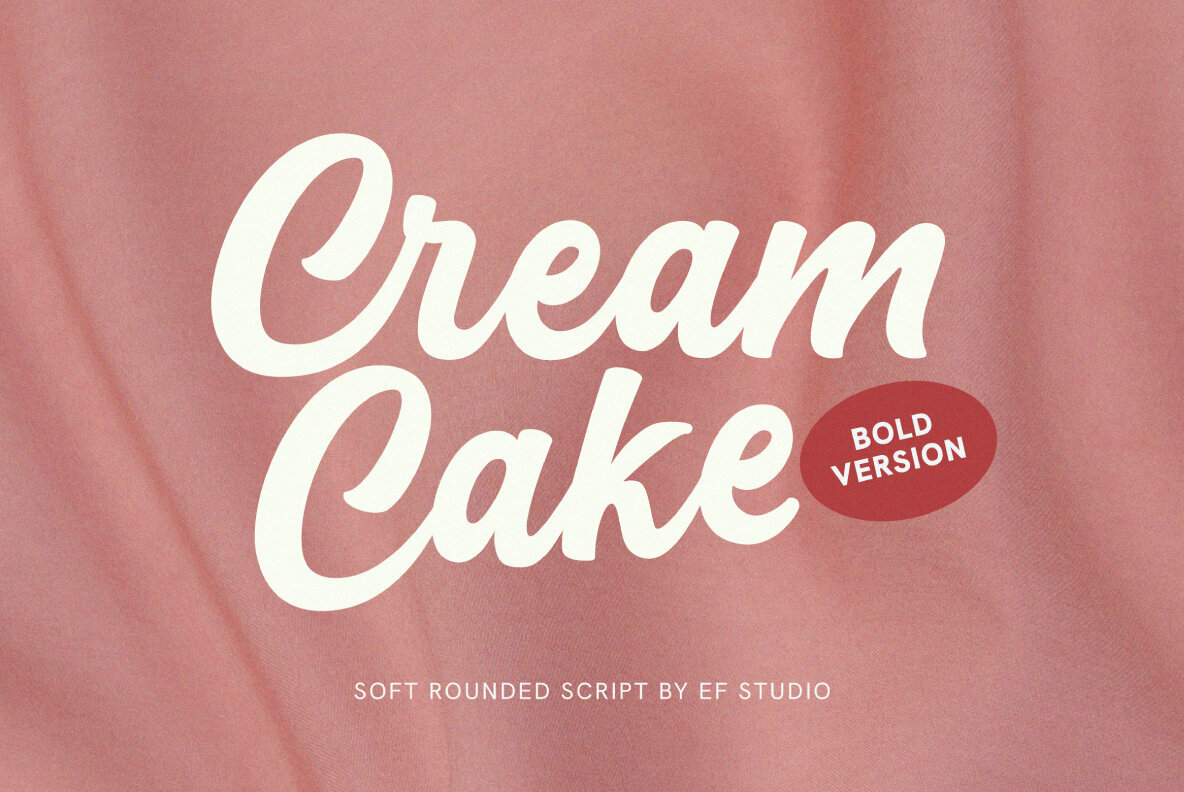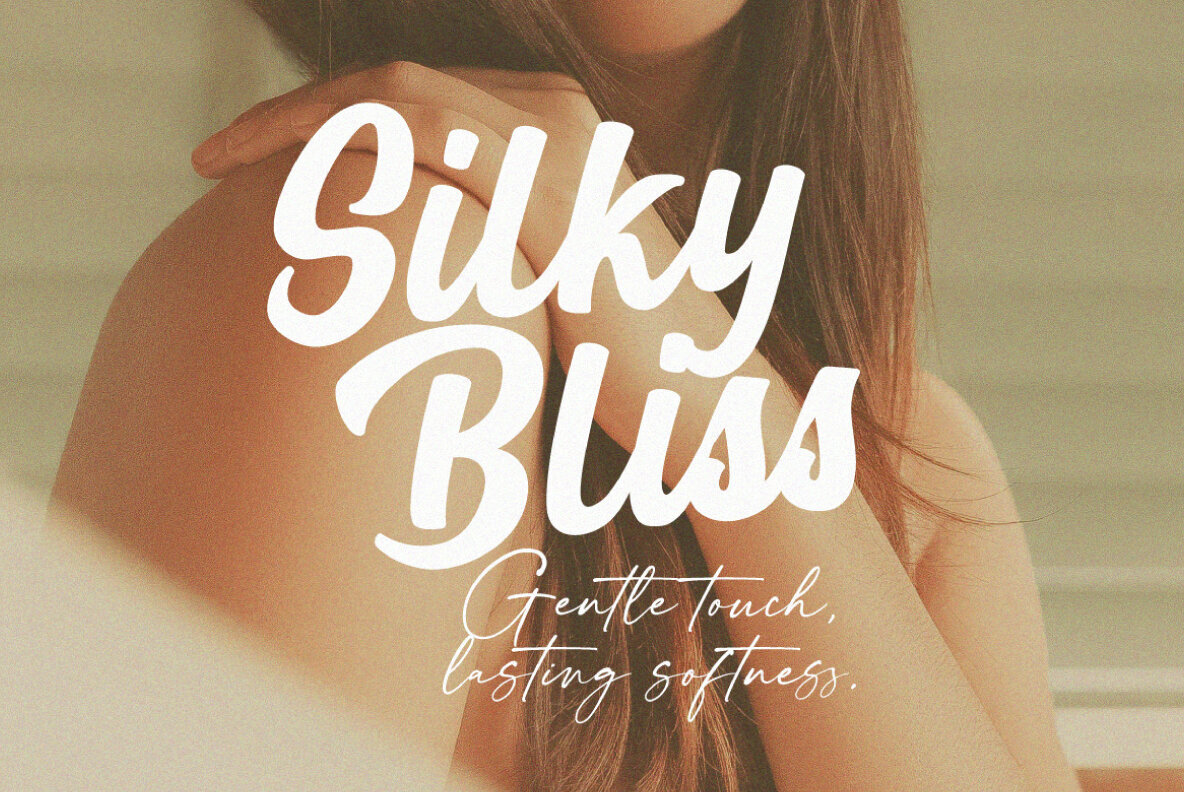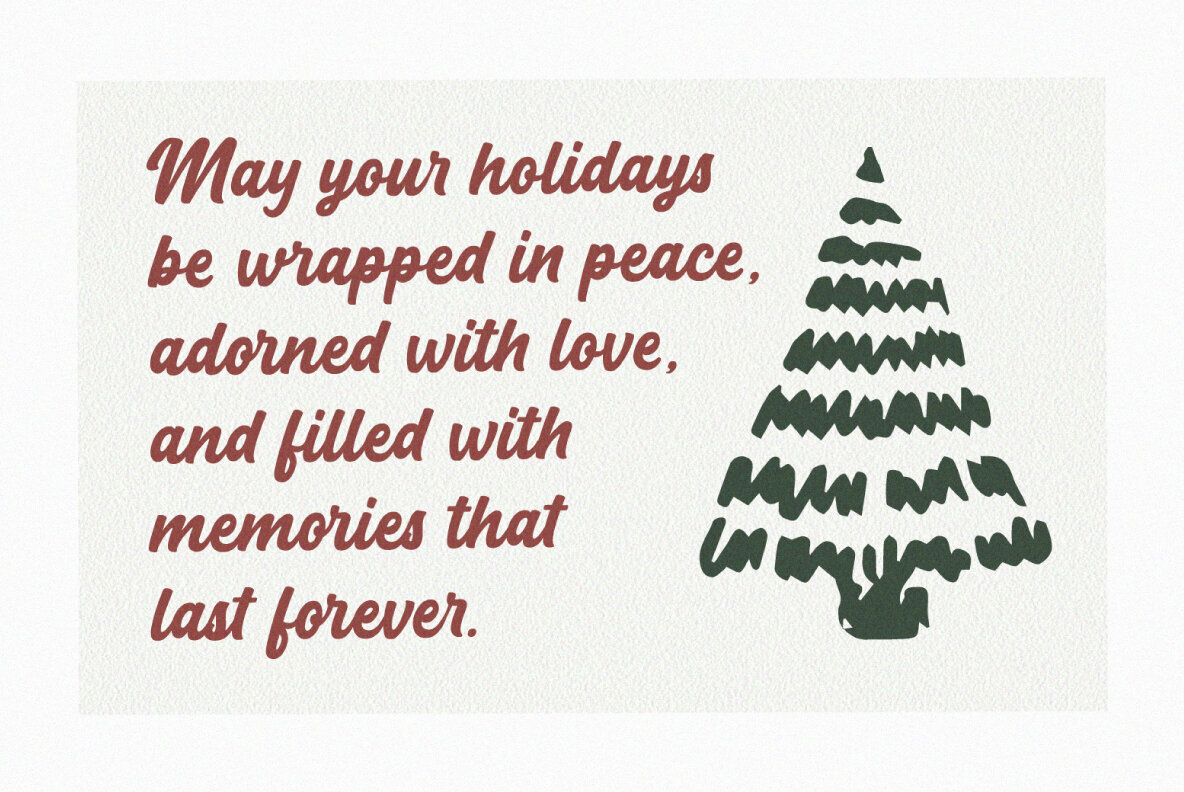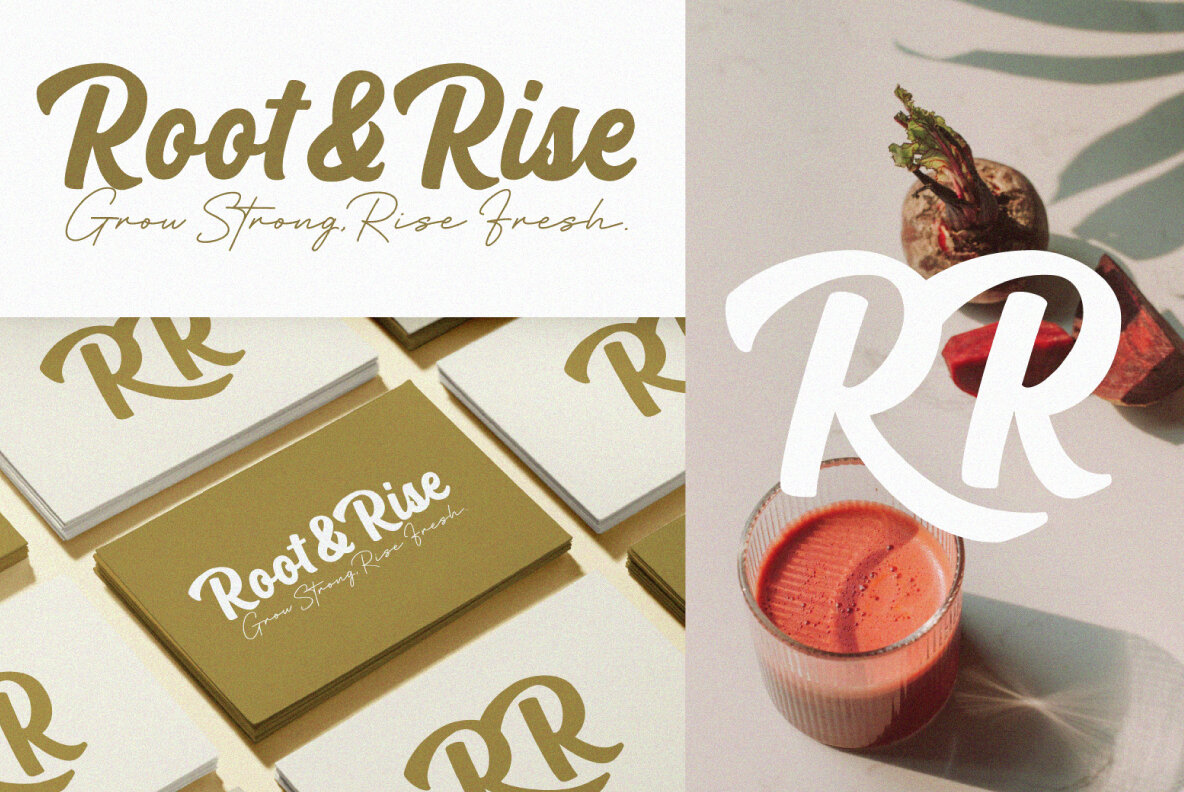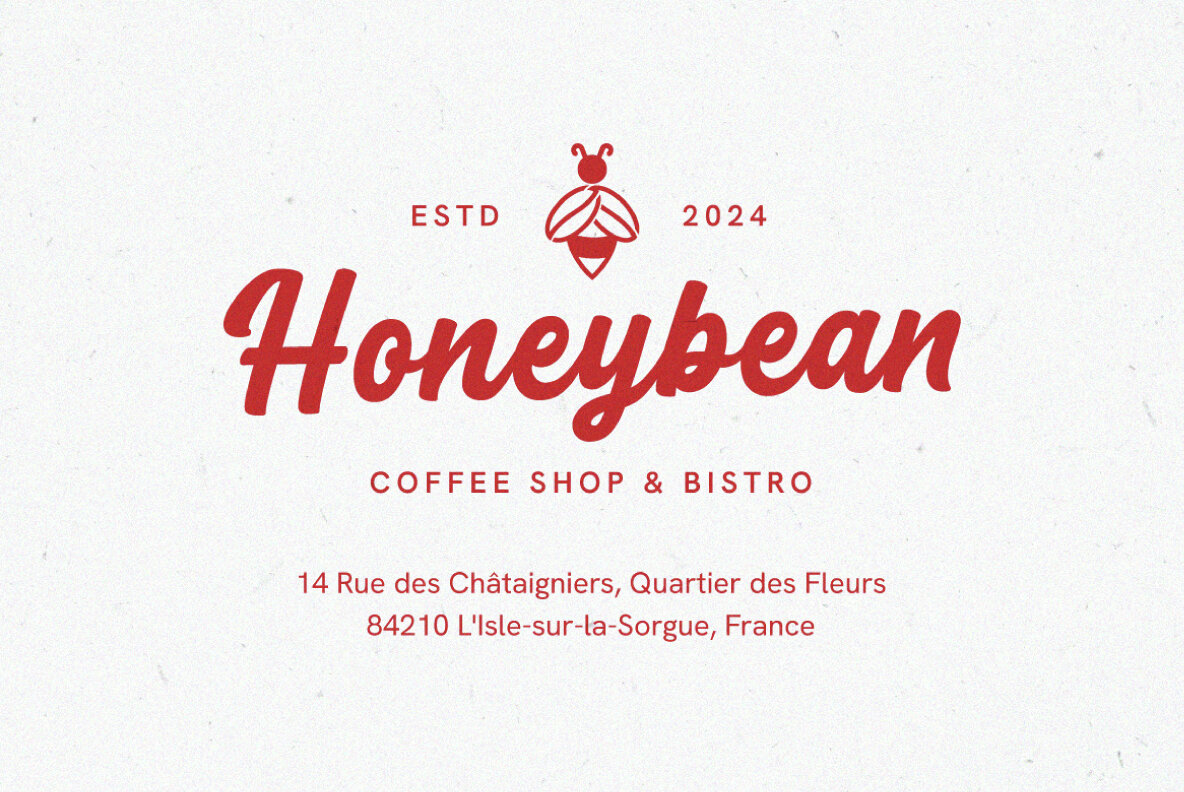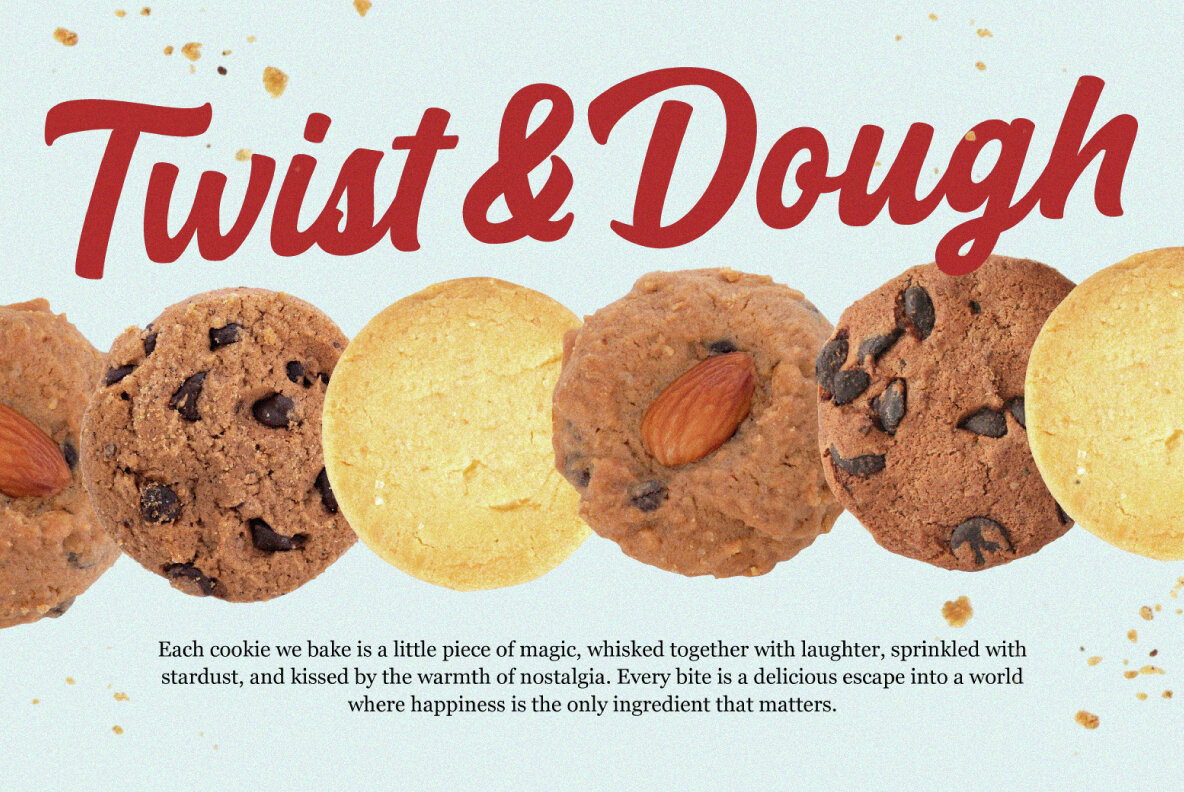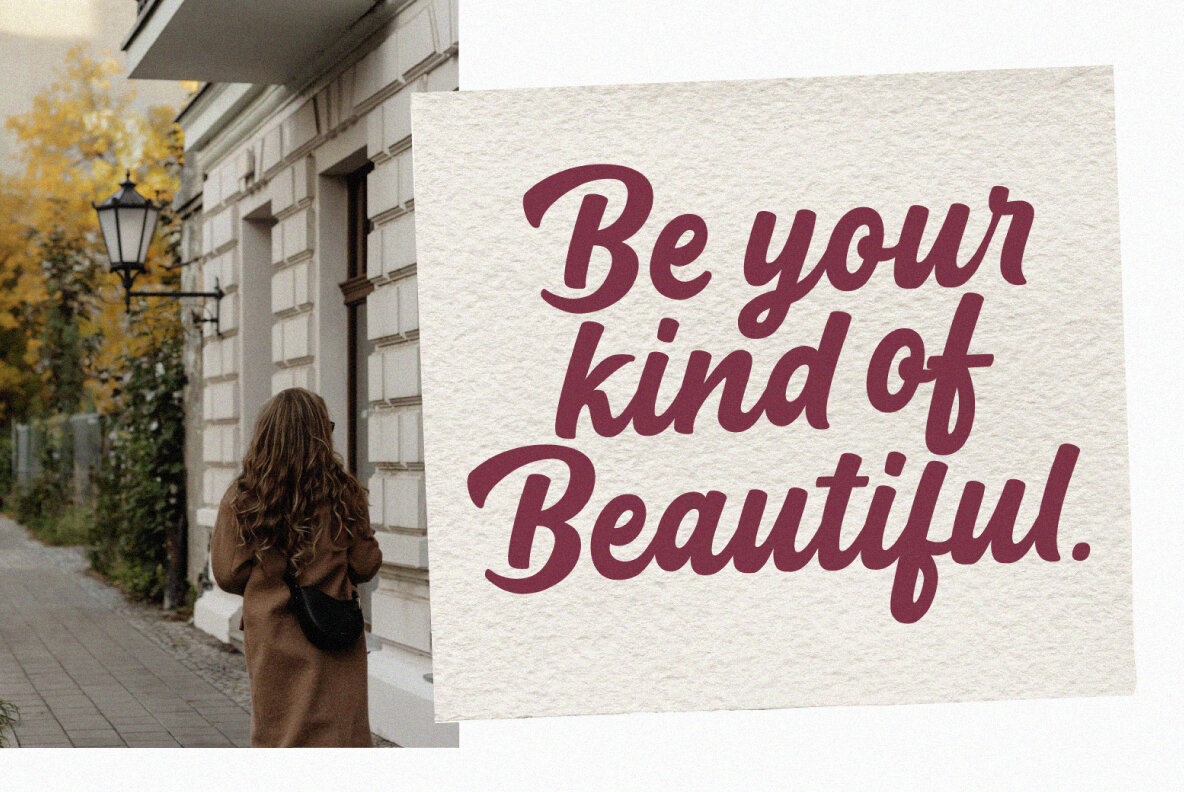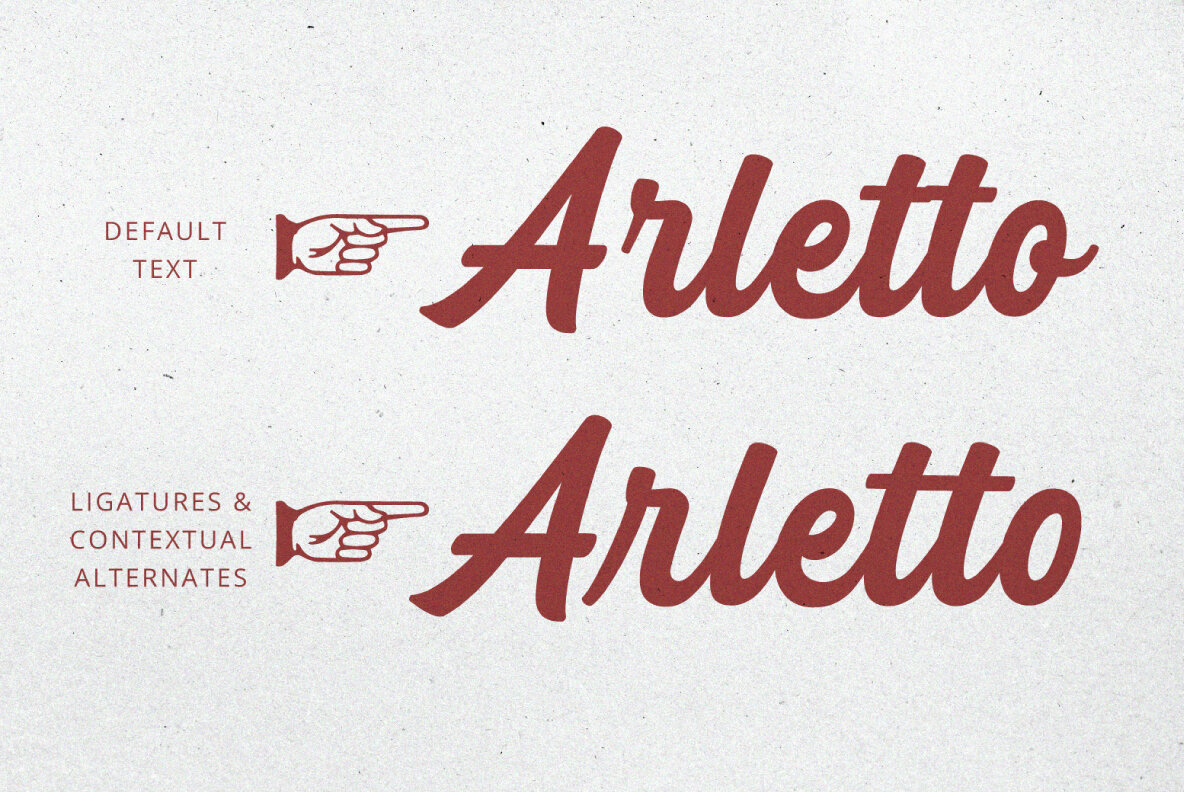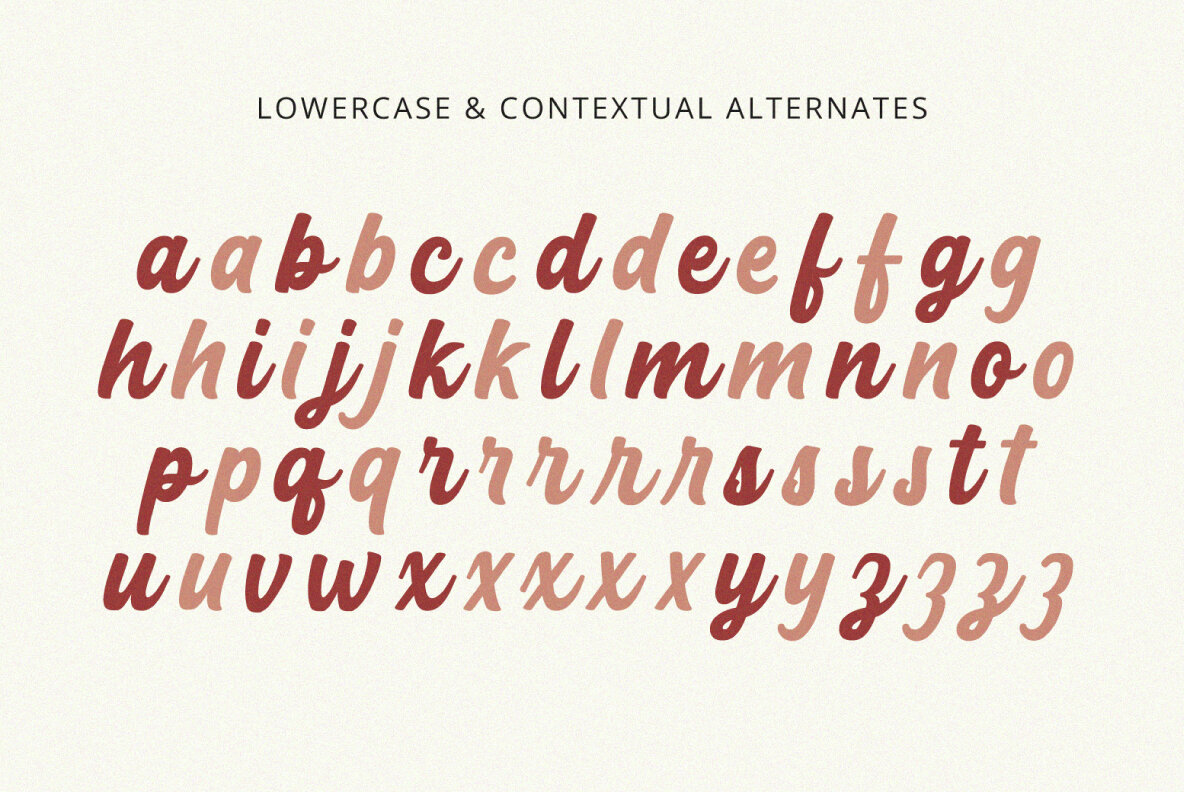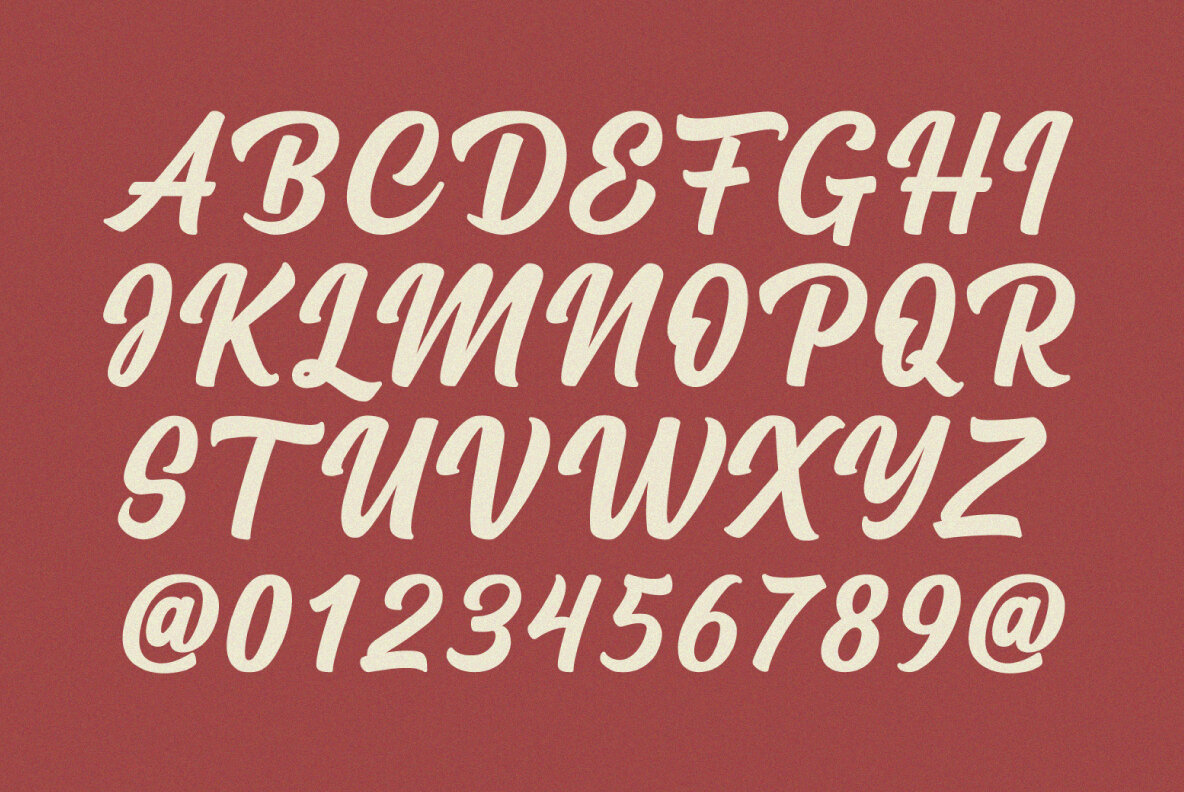
Cream Cake Font
Cream Cake Bold
Cream Cake combines retro charm with modern versatility, making it an ideal choice for diverse design projects. Its flowing curves and playful details bring a delightful vintage flair to logos, invitations, greeting cards, and packaging. Whether you're crafting headlines or adding delicate accents, this sweet script font infuses personality and style.Cream Cake: A Playful Script Font